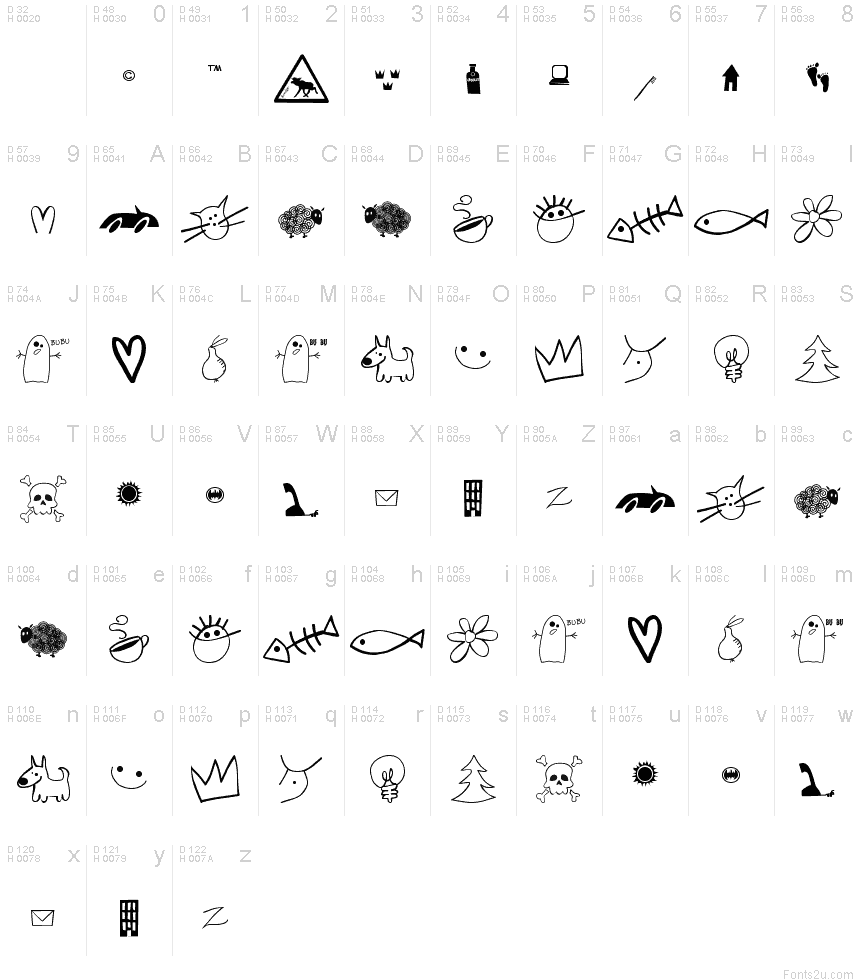
Eller
Eller font by Jenny Barck is a free symbolic dingbat typeface that turns hand-drawn doodles into charming, practical icons. With steaming coffee cups, plump pears, and a sketchy lightbulb, its thin inky lines feel casual and friendly, like notes in the margin of a favorite notebook. The simple outlines keep each symbol instantly readable, even at small sizes.
This free font shines on café menus, recipe cards, zines, planners, mood boards, and social media stickers where you want warmth without clutter. Using Eller, you can drop in quick illustrations to break up text, add emphasis, or mark sections. Try pairing it with a clean sans serif for headings and keep the icons slightly larger than the text so their playful curves stay crisp and legible.